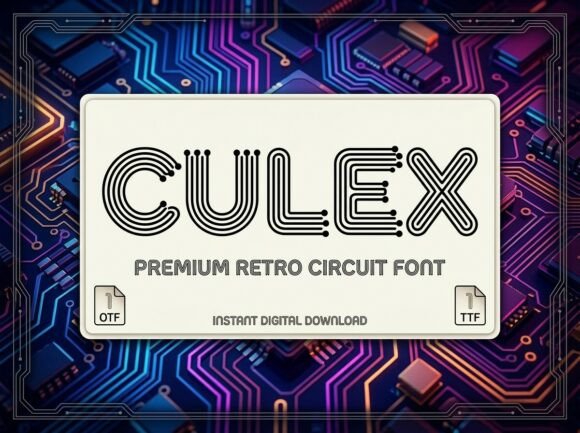
The Font That Sparks Your Creativity
Have you ever stared at a blank screen, waiting for the perfect font to bring your design to life? That’s exactly what happened to me when I first discovered the Culex Font – a high-voltage display typeface that screams “cybernetic-and-cinematic” soul. I was immediately captivated by its bold, geometric letterforms and the rhythmic, hand-drawn multiline “traces” that give it a unique touch.
Culex Font is more than just a font – it’s a tool that helps designers wire their designs for success. With its heavy structural weight and technical personality, it’s the perfect choice for independent e-sports team logos, tech startup identities, retro gaming interfaces, and high-impact social media headers. Whether you’re working on a futuristic branding project or a retro-themed design, Culex Font is sure to bring a touch of sophistication and style to your work.
- Unique Characteristics: Culex Font is a sans-serif font with a unique blend of modern and industrial styles, featuring geometric shapes and clean lines
- Font Styles: Includes 6 font styles: Light, Regular, Medium, Bold, Black, and Outline
Culex Font Review
I recently had the chance to work with the Culex Font, and I must say it’s an interesting addition to the typography world. Here are my thoughts on what works well and what doesn’t.
- Unique aesthetic**: Culex Font has a distinct look that sets it apart from other fonts. Its mix of modern and vintage elements makes it perfect for projects that need a touch of uniqueness.
- Readability**: Despite its bold and playful appearance, Culex Font is surprisingly readable. The font’s designer has done an excellent job of balancing aesthetics with legibility.
- Customization options**: The font comes with a range of weights, styles, and ligatures, making it versatile and suitable for a variety of applications.
- Font size limitations**: Culex Font can become overwhelming when used at very large font sizes. Be cautious when using it in titles or headings.
- Lack of consistency**: The font’s style and feel can be inconsistent across different weights and styles, which might be distracting in some projects.
Overall, Culex Font is a great choice for designers looking for a unique and bold typography solution. While it has its limitations, its customization options and readability make it a great addition to any design project.
Tips for Getting the Most Out of Culex Font
Use Culex Font for headings and titles to create a bold, eye-catching effect.
Pair Culex Font with other sans-serif fonts for a clean and modern look.
Culex Font is ideal for:
Business presentations and reports
Marketing materials and advertisements
Graphic design and branding projects
Alternatives to Culex Font
Monserrat Font is a popular sans-serif typeface designed by Julieta Ulanovsky. It’s a great alternative to Culex Font when you need a modern, urban feel. Montserrat is more geometric and structured, making it perfect for digital applications and websites.
Comparison to Culex Font: Montserrat Font is more modern and has a stronger geometric feel compared to Culex Font. While Culex Font has a more rounded and friendly feel, Montserrat Font is more edgy and modern.
Open Sans Font is a clean and modern sans-serif typeface designed by Steve Matteson. It’s a great alternative to Culex Font when you need a clean and readable font for body text. Open Sans Font is more neutral and doesn’t have the same level of personality as Culex Font.
Comparison to Culex Font: Open Sans Font is more neutral and doesn’t have the same level of personality as Culex Font. While Culex Font has a unique feel, Open Sans Font is more generic and suitable for a wide range of applications.